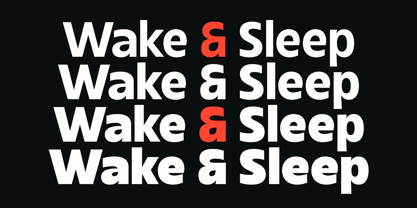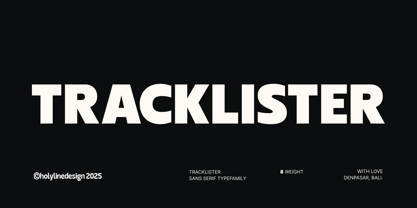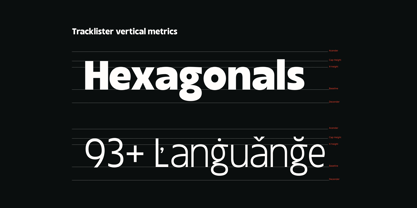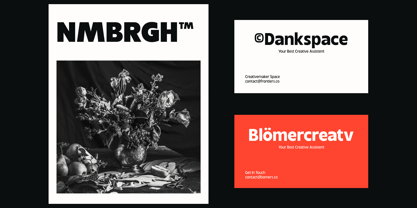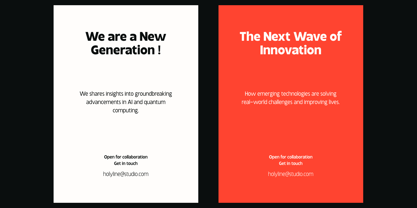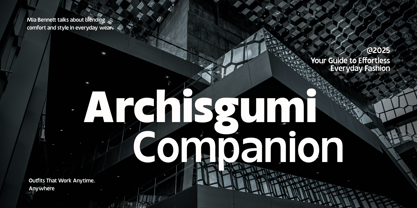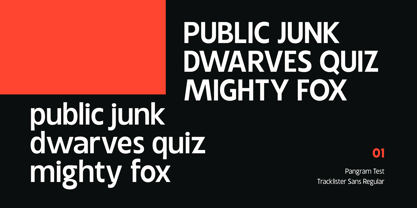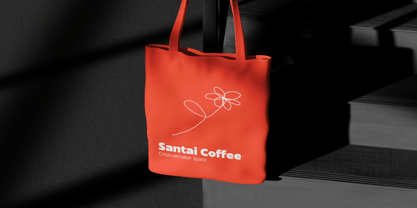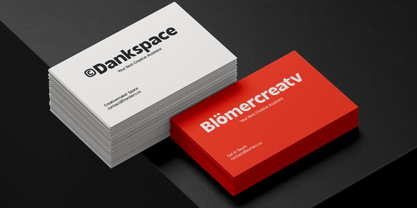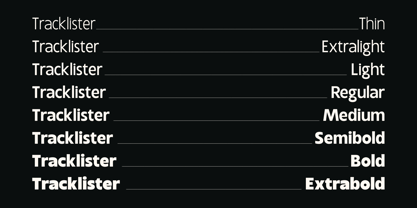
Tracklister
by holyline design
The Tracklister Font Family was designed by Bagus Beratha Wijaya and published by holyline design. Tracklister contains 8 styles and family package options.
Tracklister is a bold and modern sans serif display font that fuses neo-modern aesthetics with geometric precision. Designed for impact, this font is ideal for headline typography, minimalist compositions, and explorative typographic designs.
With 8 weights ranging from thin to bold, Tracklister ensures versatility while maintaining a strong presence in every character. Its clean yet dynamic structure makes it perfect for editorial layouts, branding, and contemporary digital projects. Tracklister is a go-to choice for designers looking for a typeface that balances futuristic elegance with powerful readability.
Designers: Bagus Beratha Wijaya
Publisher: holyline design
Foundry: holyline design
Design Owner: holyline design